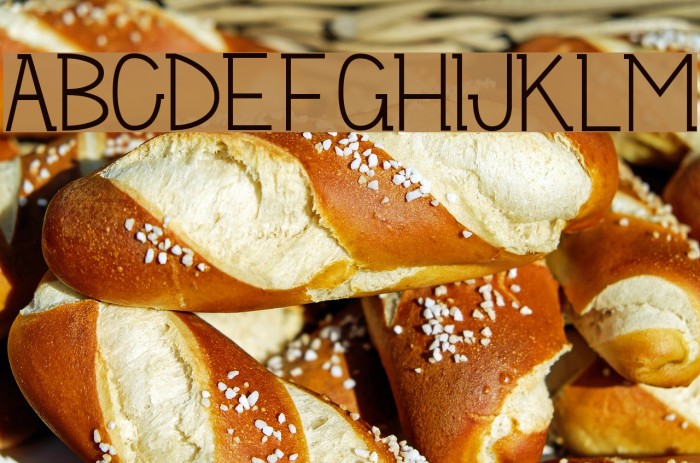
Allumeuse Flirt Font
This font features a unique and playful design with a modern twist. The characters are tall and slender, with a slight curve that adds a touch of elegance. The uppercase letters are distinct with a consistent height, while the lowercase letters maintain a similar style, creating a harmonious look. The numerals are well-proportioned, and the special characters are creatively designed to match the overall aesthetic. The font's clean lines and geometric shapes make it versatile for various design projects.
A modern, playful font with tall, slender characters and a touch of elegance.
- Proposed Projects: Ideal for branding, advertising, posters, and creative projects that require a modern and playful touch.